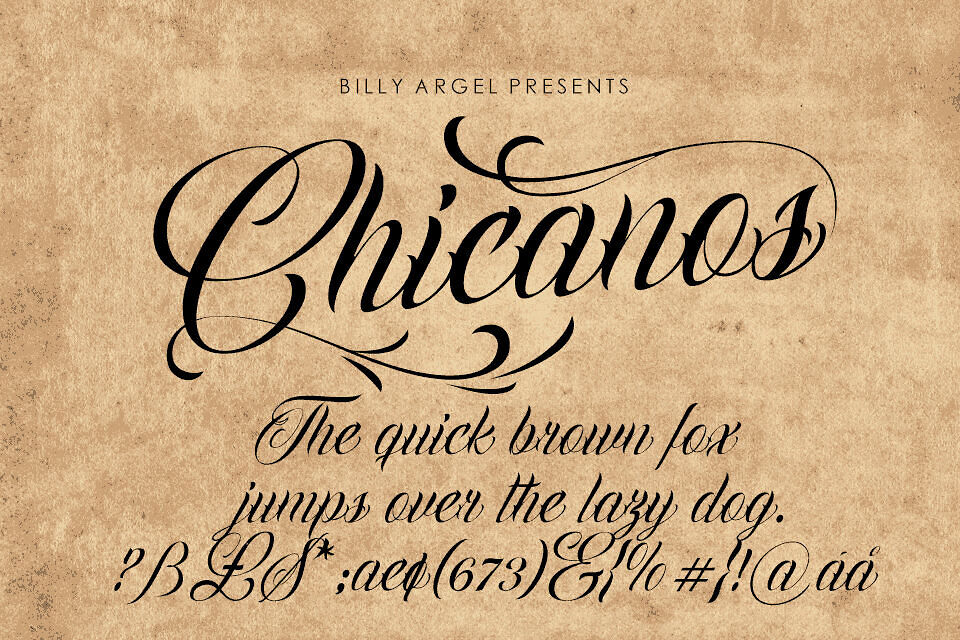
Chicanos Font
Chicanos is a stylish script font with a relaxed, calligraphic feel and expressive swashes. Designed by Billy Argel, it blends elegance with a playful, handwritten look, making it ideal for logos, invitations, branding, and social media graphics. Its smooth curves and decorative ligatures add personality and charm, giving designs a creative, personal touch.
Designed by: Billy Argel Fonts